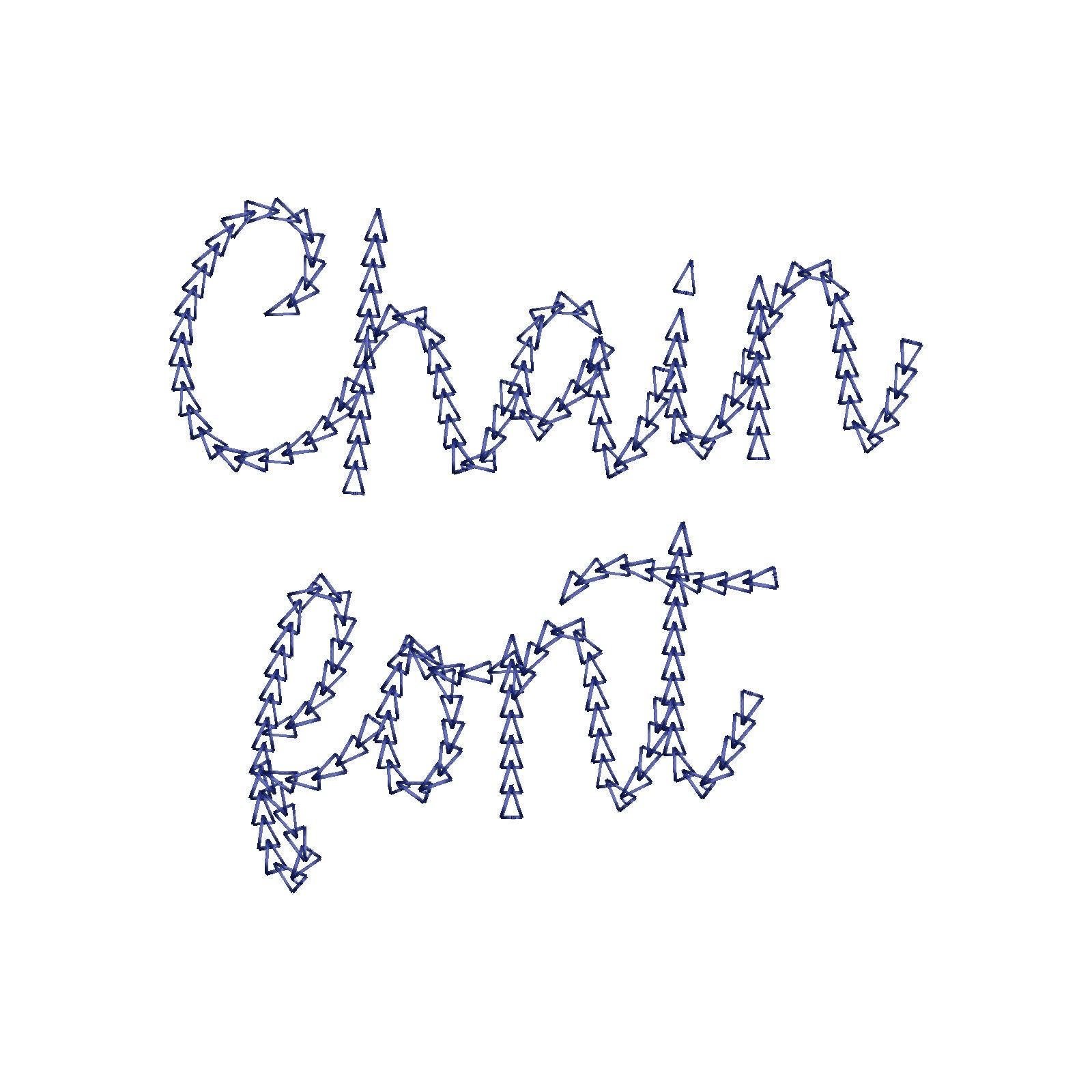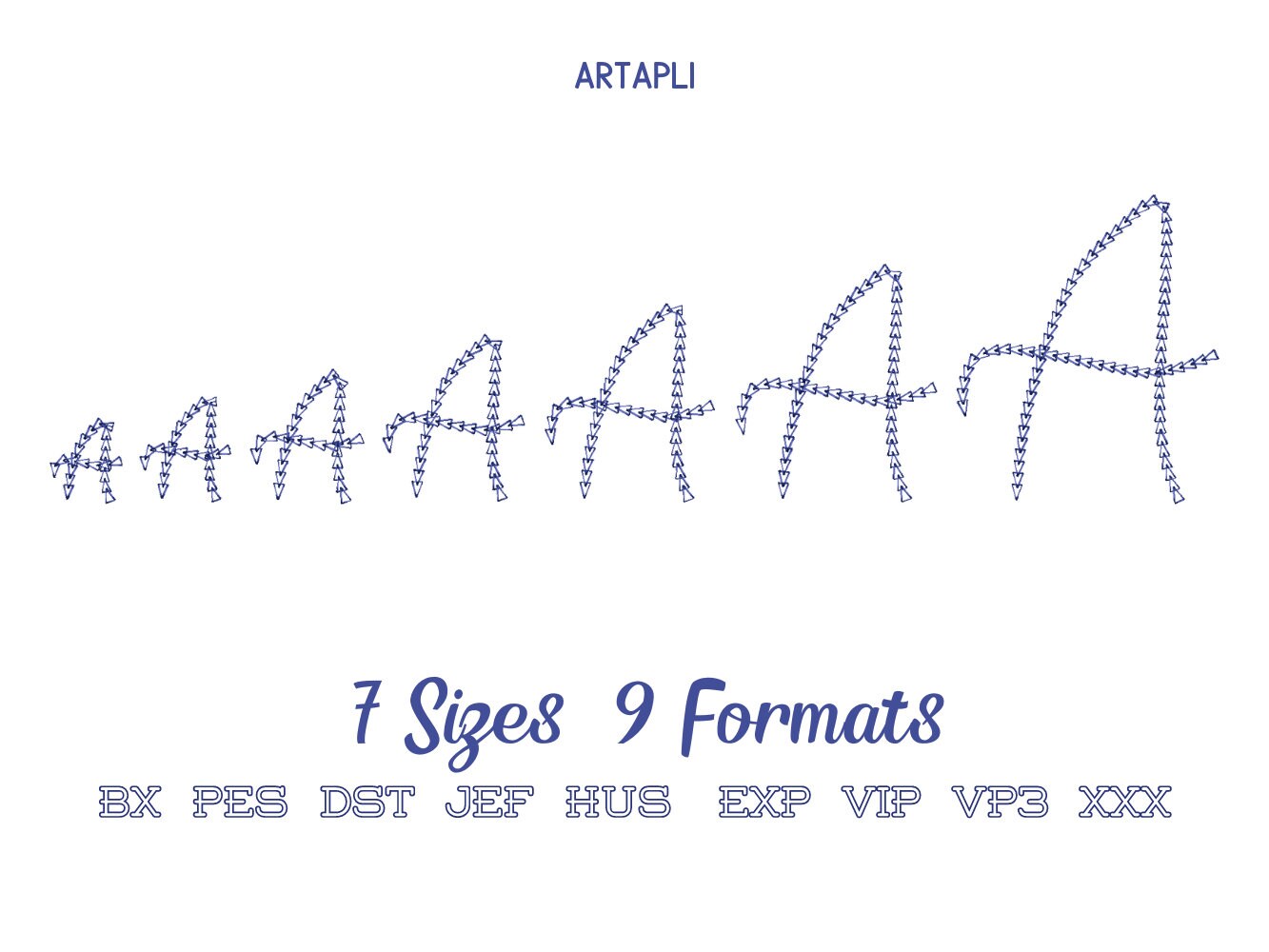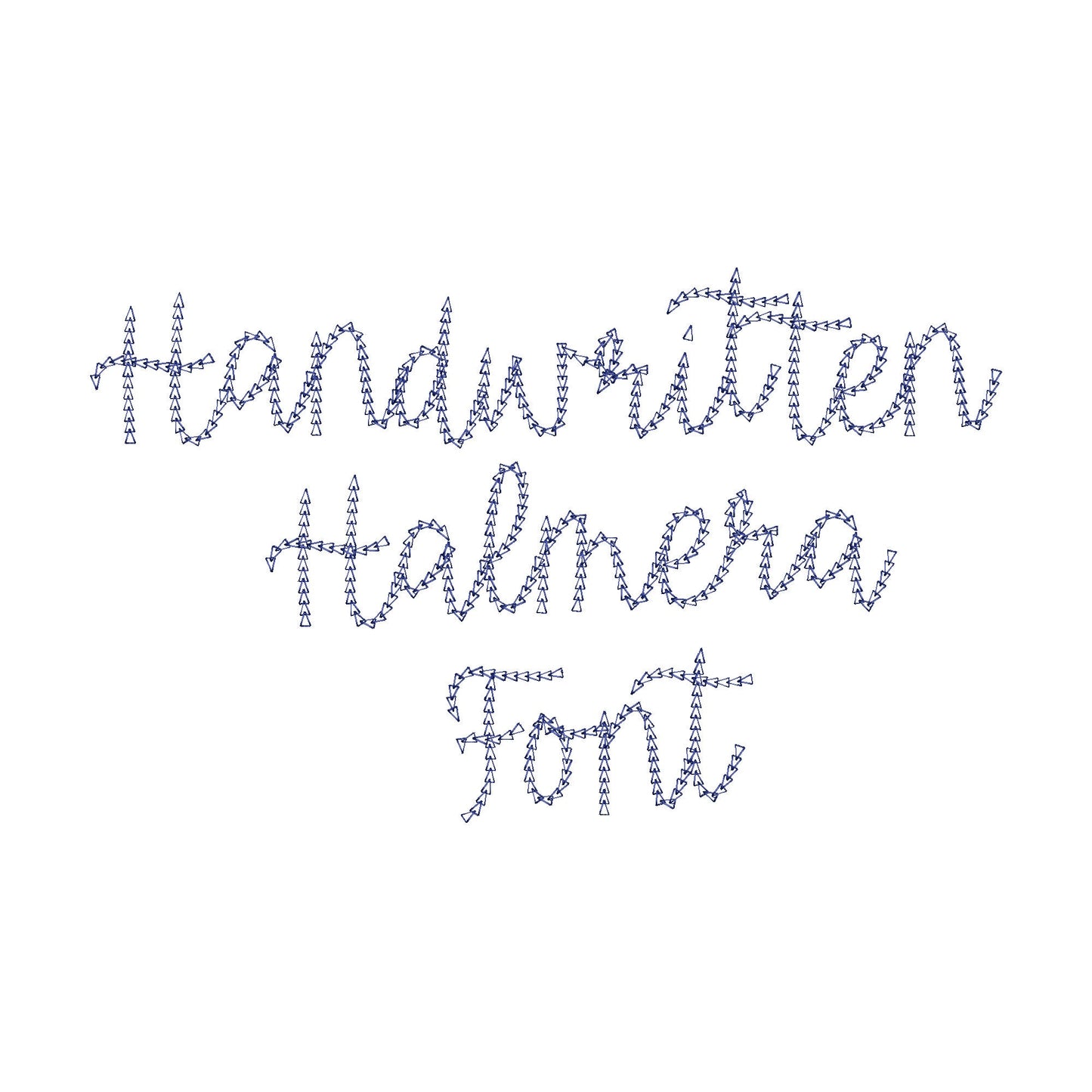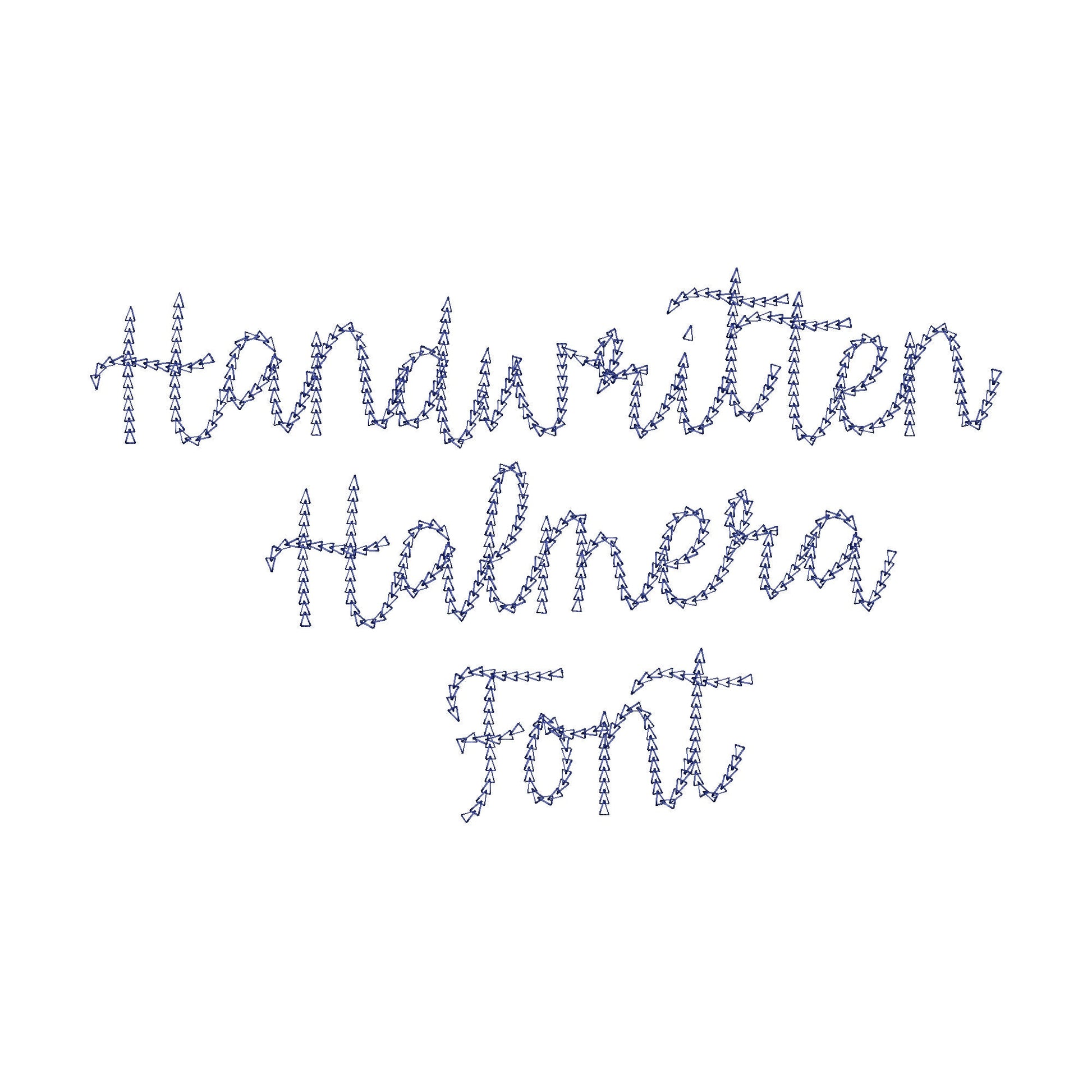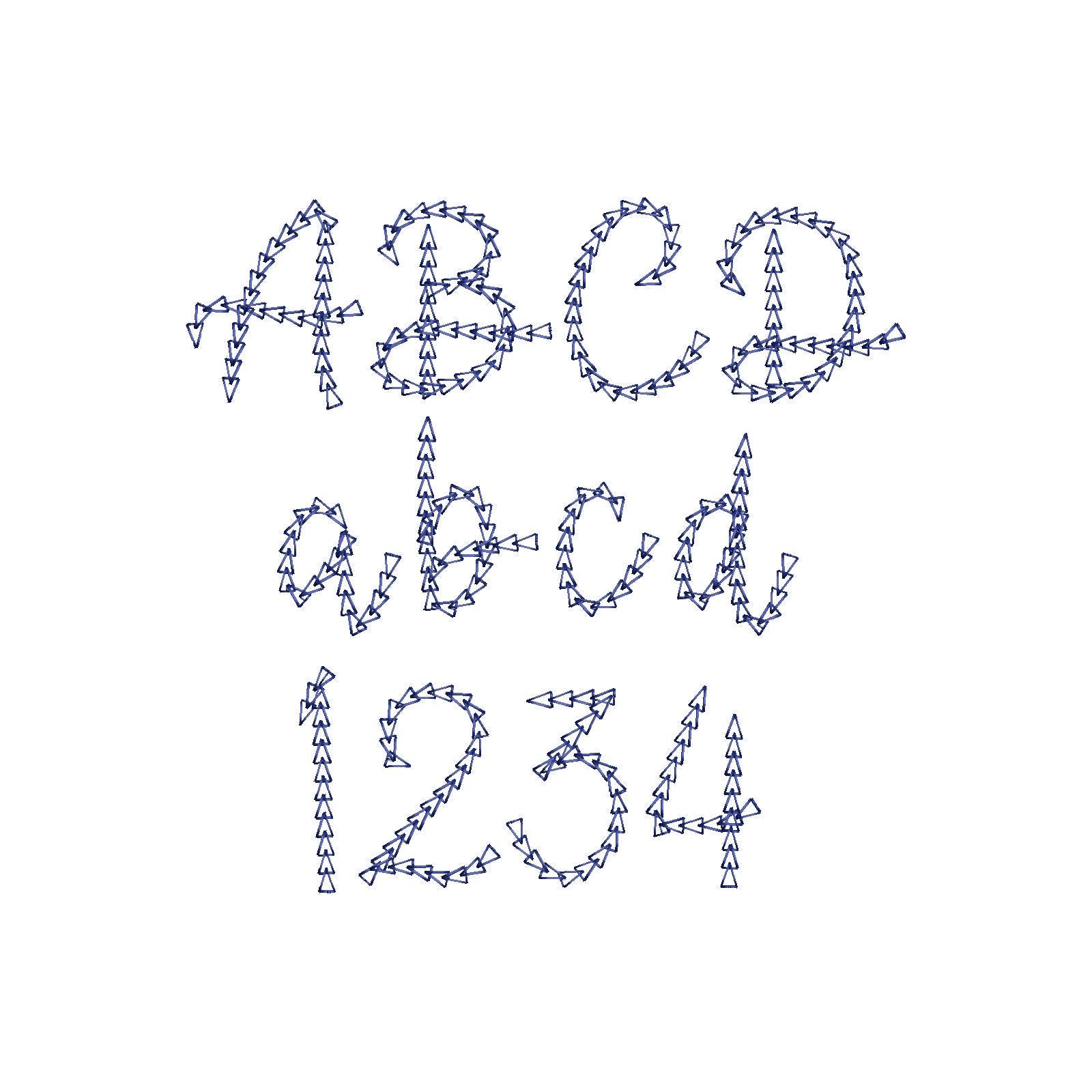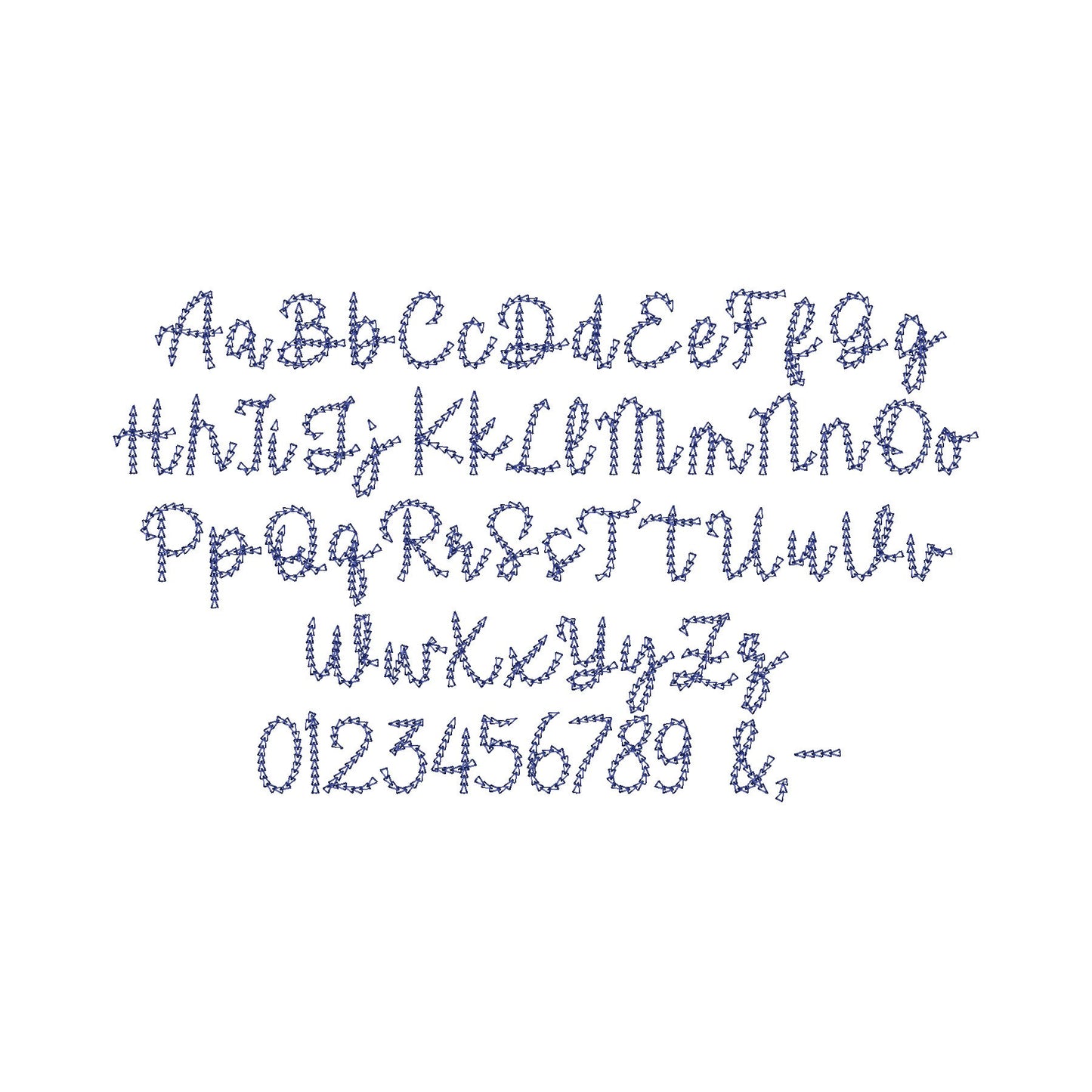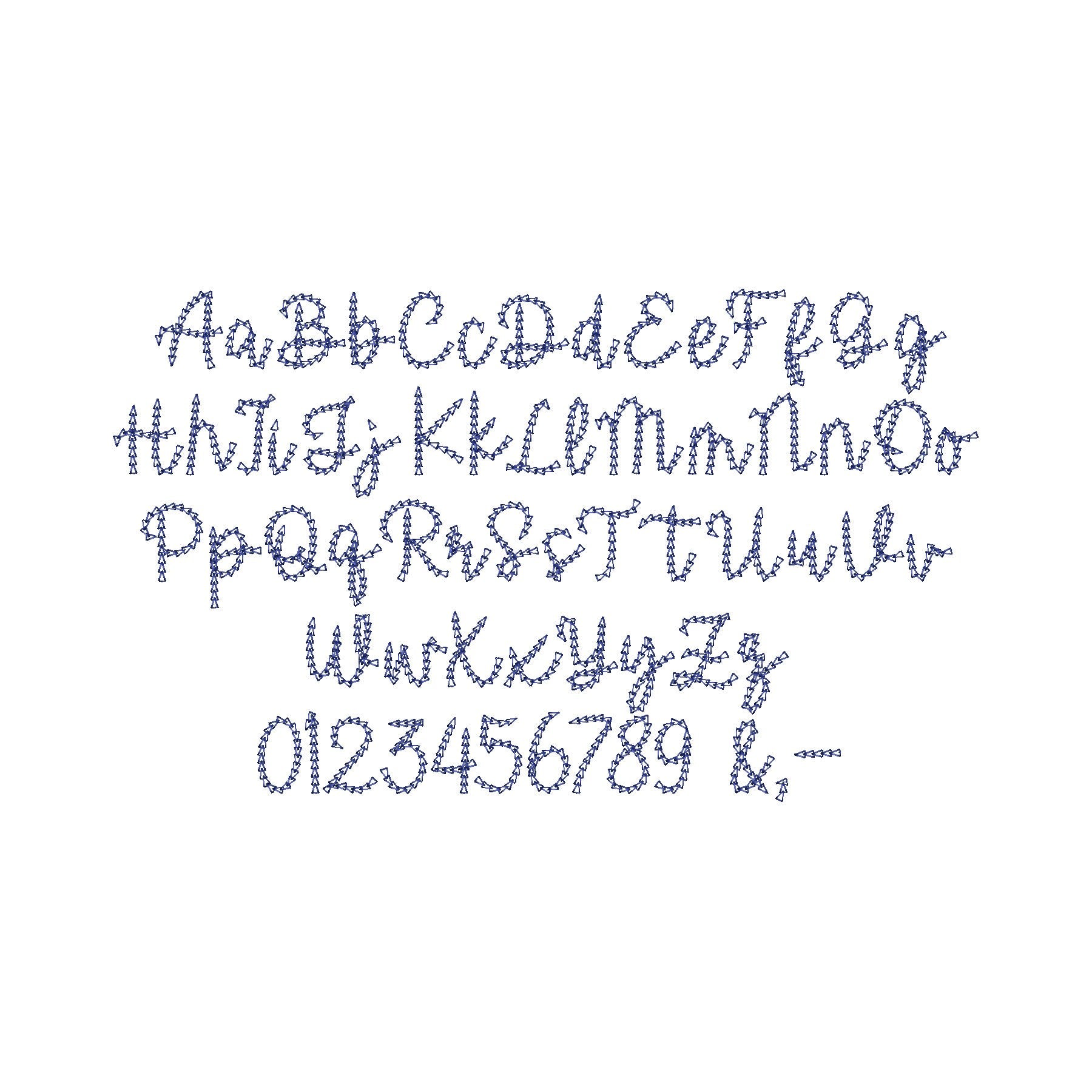
Or click to open the linkA quick light-stitch chain link font, playful for kids' names and monograms on shirts, bags and pillows.
Each letter is made of stitched chain links. Uppercase and lowercase letters, numbers and punctuation in seven sizes: 1, 1.3, 1.7, 2, 2.5, 3 and 4 inches.